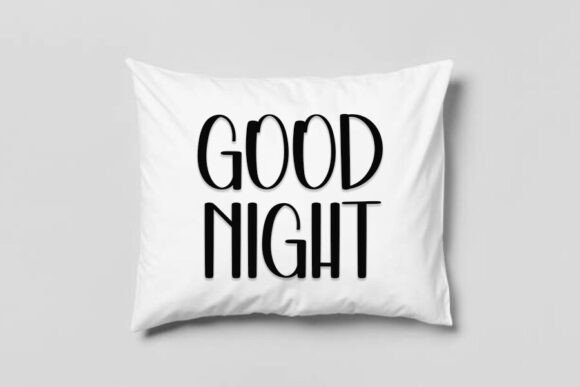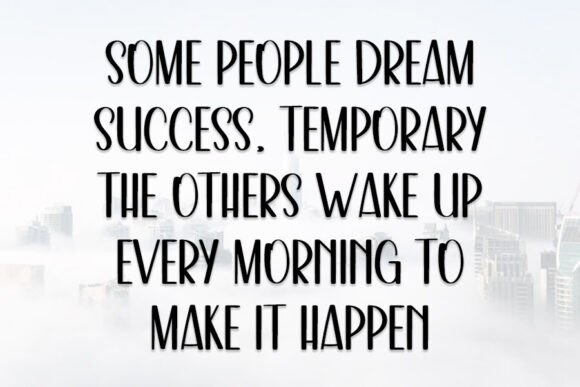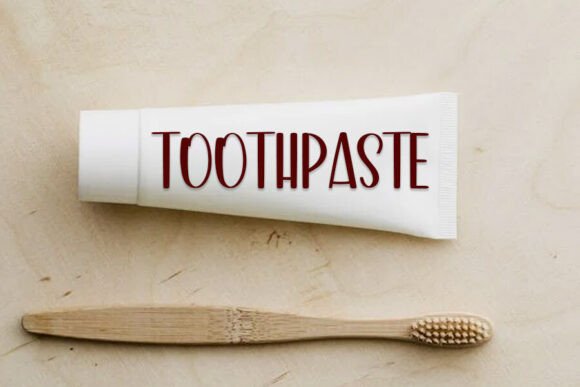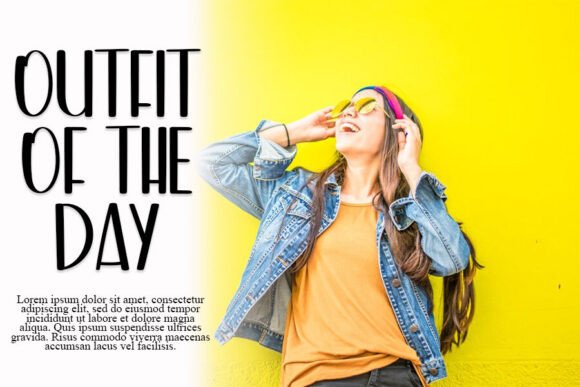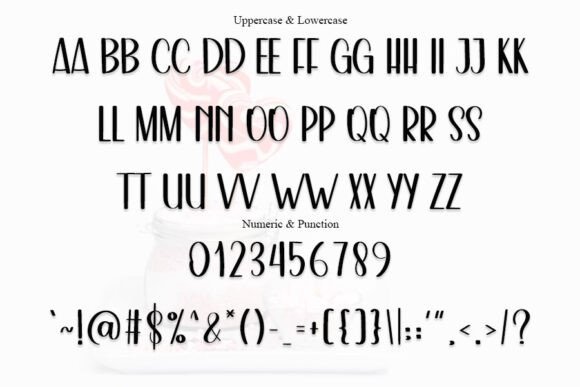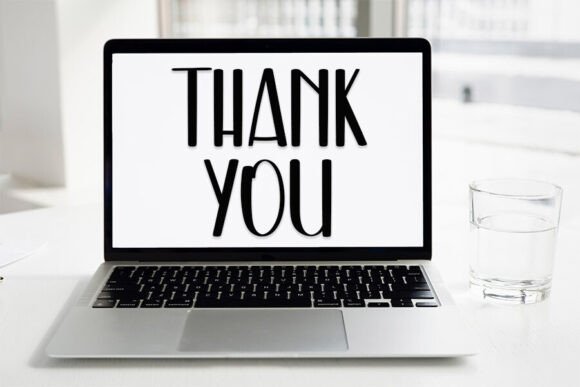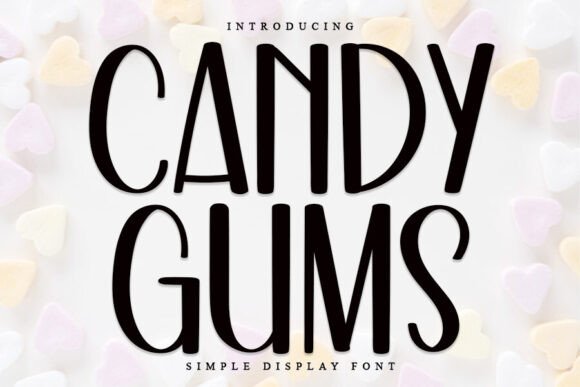
Candy Gums Font: A Playful and Creative Display Font for Fun Projects
Are you looking for a font that can add a personal touch and a sense of warmth to your designs? Look no further than Candy Gums Font, a handmade display font that features a playful and creative style. With its unique letters and friendly, casual look, this font is perfect for fun projects like invitations, posters, and logos.
What is Candy Gums Font?
Candy Gums Font is a one-of-a-kind display font that is handcrafted with love and care. Its creator has poured their heart and soul into designing a font that is not only visually appealing but also highly versatile. The font features a playful and creative style that is sure to make your designs stand out from the crowd.
Key Features of Candy Gums Font
- Playful and creative style: Candy Gums Font has a unique and playful style that is perfect for fun projects.
- Handmade with love and care: The font is handcrafted, giving it a personal touch and a sense of warmth.
- Unique letters: Each letter in the font is carefully designed to have a friendly, casual look.
- Perfect for invitations, posters, and logos: The font is ideal for designing invitations, posters, logos, and other creative projects.
Why Use Candy Gums Font?
There are many reasons why you should consider using Candy Gums Font in your designs. Here are a few:
- Adds a personal touch: The font’s handmade and playful style gives it a personal touch that can make your designs more relatable and engaging.
- Versatile: Candy Gums Font can be used for a wide range of projects, from invitations and posters to logos and branding.
- Easy to read: Despite its playful style, the font is easy to read and can be used for both headings and body text.
- Unique: The font’s unique style ensures that your designs will stand out from the crowd and grab attention.
How to Use Candy Gums Font
Using Candy Gums Font is easy. Here are a few tips to get you started:
- Pair it with other fonts: Candy Gums Font can be paired with other fonts to create a unique and interesting design.
- Use it for headings: The font is perfect for headings and titles, but can also be used for body text.
- Experiment with colors: The font looks great in a variety of colors, so don’t be afraid to experiment and find the perfect color for your design.
Who is Candy Gums Font for?
Candy Gums Font is perfect for designers, crafters, and anyone who loves to create fun and playful designs. Here are a few examples of who can benefit from using this font:
- Graphic designers: Graphic designers can use Candy Gums Font to create unique and eye-catching designs for their clients.
- Crafters: Crafters can use the font to create handmade cards, invitations, and other paper crafts.
- Small business owners: Small business owners can use the font to create branding materials, such as logos and brochures.
In conclusion, Candy Gums Font is a unique and playful display font that is perfect for fun projects like invitations, posters, and logos. Its handmade style and friendly, casual look make it a great choice for designers and crafters who want to add a personal touch to their designs. With its versatility and ease of use, Candy Gums Font is a must-have for anyone who loves to create fun and creative designs.